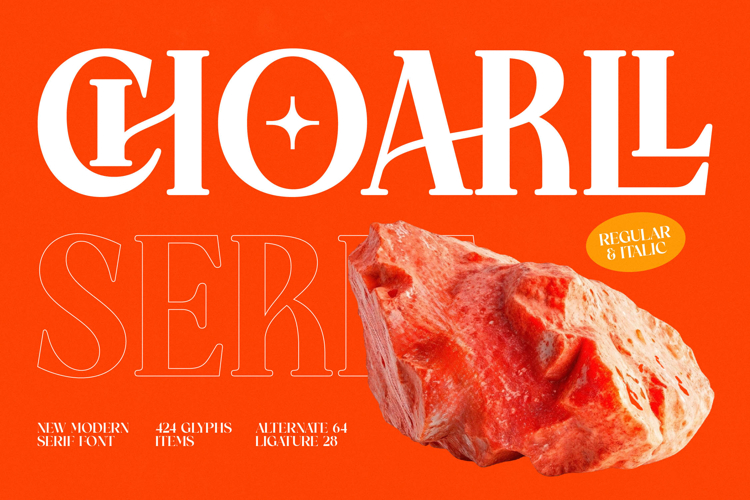
Choarll - New Modern Serif Font
Discover the captivating elegance of Choarll - New Modern Serif Font, a design masterpiece that perfectly blends classic refinement with contemporary flair. This striking typeface features a captivating high-contrast aesthetic, sharp serifs, and subtly expressive curves, ensuring every word commands attention. Its unique character set brings a sophisticated touch to any project, establishing an immediate sense of premium quality and distinctive style.
Unlock unparalleled design possibilities with the inherent versatility of Choarll - New Modern Serif Font. Boasting an impressive collection of 424 glyphs, including 64 alternates and 28 ligatures, this font offers boundless creative freedom. Craft compelling headlines, distinctive logos, and memorable textual elements that truly stand out, making it an indispensable tool for designers seeking to infuse their work with a touch of bespoke craftsmanship.